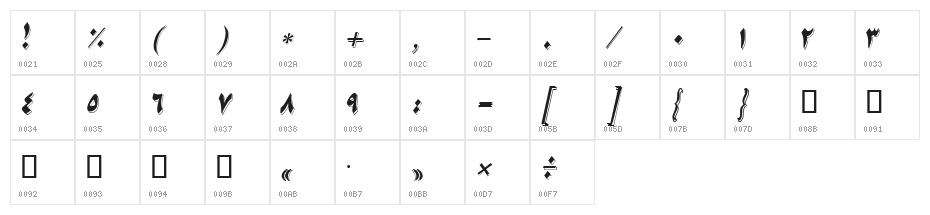
Sahar Italic Font
Sahar Italic Description
This font features an elegant and flowing italic style, characterized by its smooth curves and dynamic strokes. The letters have a calligraphic influence, providing a sense of movement and grace. The numerals are distinct with a slight slant, maintaining the overall aesthetic. Special characters are designed with the same fluidity, ensuring consistency across all glyphs. The font's design is both artistic and readable, making it suitable for creative projects that require a touch of sophistication.
| Proposed Projects | Ideal for wedding invitations, greeting cards, elegant branding, and artistic posters. |